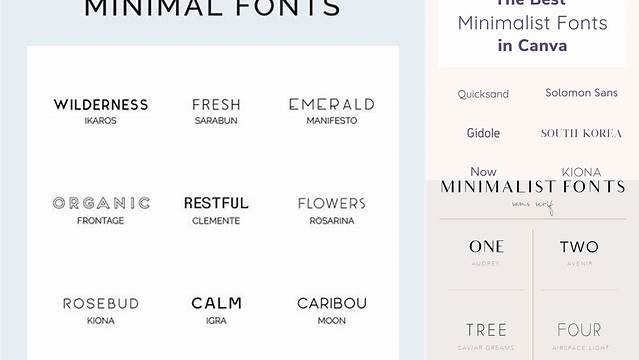
Download Free Minimalist Fonts: Your Ultimate Guide
Hey guys! Let's dive into the awesome world of minimalistic fonts free download! These fonts are super popular, and for good reason. They're clean, easy to read, and look fantastic in everything from websites to business cards. Finding the perfect minimalist font can seriously elevate your design game, making your projects look professional and stylish. This guide is all about helping you find and download the best free minimalist fonts out there. I'll walk you through everything, so you can start creating beautiful designs in no time. Get ready to explore some amazing typography!
H2: What Makes a Font "Minimalist"? Understanding the Core Principles
So, what exactly is a minimalist font? It's more than just a font that looks simple; it's about embracing clean lines, uncluttered design, and a sense of elegance. Think of it like this: a minimalist font is the design equivalent of a perfectly tailored suit. It's refined, sophisticated, and gets straight to the point without any unnecessary flair. These fonts often feature a lack of serifs (those little strokes at the end of letters), resulting in a sans-serif style that feels modern and sleek. The shapes of the letters are typically geometric, with consistent stroke weights and plenty of negative space – the empty areas around and within the letters. This use of space is crucial; it allows the letters to breathe and makes them incredibly easy to read, even at smaller sizes. Minimalistic fonts free download often come in a variety of weights, from light and airy to bold and impactful, giving you plenty of options for your designs. The goal is always clarity and readability, prioritizing the message over elaborate decoration. In essence, a minimalist font is about stripping away the excess and focusing on the essential elements of typography.
When choosing a minimalist font, consider how it will complement your project. Will it be used for headlines, body text, or both? Some fonts are better suited for certain uses than others. Headline fonts can be bolder and more attention-grabbing, while body text fonts should prioritize readability. Also, think about the overall tone you want to convey. Do you want to project a sense of sophistication, playfulness, or professionalism? The right minimalist font can perfectly capture your desired aesthetic. Understanding the core principles of minimalism in font design helps you appreciate the subtleties and the impact that these fonts can have on your creative work. It's about more than just aesthetics; it's about effectively communicating your message in the most visually pleasing and accessible way possible.
H2: Key Characteristics of Minimalist Font Styles
Minimalistic fonts free download are defined by several key characteristics that set them apart from other font styles. Firstly, simplicity is key. These fonts often avoid unnecessary flourishes, intricate details, or elaborate decorations. The focus is on the fundamental shapes of the letters. Clean lines and smooth curves are the name of the game. Secondly, legibility is of utmost importance. Minimalist fonts are designed to be easy to read, even at smaller sizes. This is achieved through a careful balance of letter spacing, kerning (the space between specific letter pairs), and the overall shape of the characters. The fonts often feature a consistent stroke weight, which means that the thickness of the lines making up the letters remains the same throughout the design. This consistency creates a sense of visual harmony and helps maintain readability. The absence of serifs, the small decorative strokes at the end of letter, is another common feature. Sans-serif fonts are often considered the epitome of minimalism, as they convey a sense of modernity and simplicity. In terms of the font's structure, you will see a strong emphasis on geometric shapes, such as circles, squares, and straight lines. These simple shapes contribute to the overall clean and uncluttered aesthetic. Lastly, negative space plays a critical role in minimalist fonts. The use of white space around and within the letters is carefully considered to allow the letters to breathe and prevent them from feeling cramped or cluttered. By mastering these characteristics, designers are able to create fonts that are both visually appealing and highly functional, perfectly suited for a wide range of applications.
H2: Best Minimalist Font Pairings and Combinations
Choosing the right minimalist font is only half the battle. To truly elevate your designs, you'll want to learn the art of font pairing. Font pairings involve combining different fonts to create a visually appealing and balanced look. Minimalistic fonts free download work especially well in combination with other fonts, as the clean and simple design of the minimalist font can complement a more decorative or expressive font. One popular combination is pairing a minimalist sans-serif font for headlines with a serif font for body text. This creates a clear visual hierarchy, making the headlines stand out while the serif font provides a more traditional and readable body text. Another great pairing involves combining two minimalist fonts with different weights or styles. For instance, you might use a bold sans-serif font for your headings and a lighter weight of the same font for your subheadings or body text.
The key is to choose fonts that complement each other, rather than compete. To create stunning combinations, think about the mood or tone you want to convey. For a modern and clean look, consider pairing a geometric sans-serif font with a simple, elegant serif font. If you want to add a touch of personality, you can mix a minimalist font with a handwritten or script font. Just be sure to use the script font sparingly, as it can be less readable. When it comes to actually creating your font combinations, start by experimenting. Try different pairings, and see what looks best. You can use online font pairing tools or even create mockups to see how the fonts will look in action. Consider the visual weight of the fonts, the contrast between them, and how well they work together in terms of readability. Ultimately, the goal is to create a cohesive and visually appealing design that effectively communicates your message. Experimentation is crucial; don't be afraid to try different combinations and see what sparks your creativity.